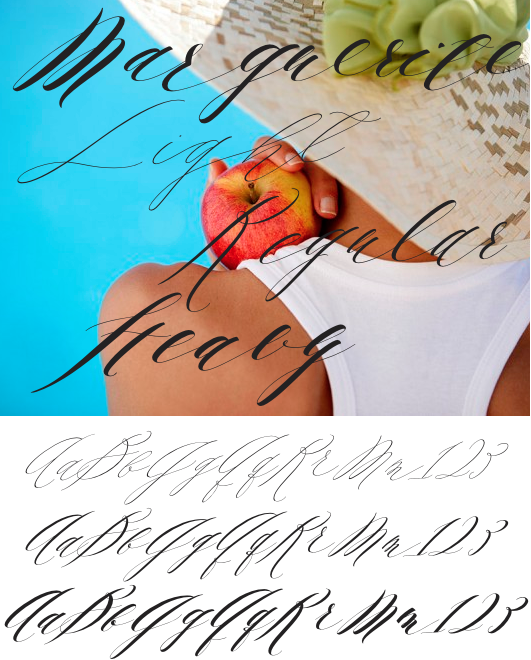
Marguerite Family (3 fonts)
From Great Lakes Lettering
Alissa has a way of surprising her viewer, with a look that is authentic, yet chic, relaxed, but also elegant. Marguerite’s trademarks are strong angles, bold uppercase forms, elegant hairlines and perfectly placed swashes. She comes along with many ligature variations and a contextual alternates features.